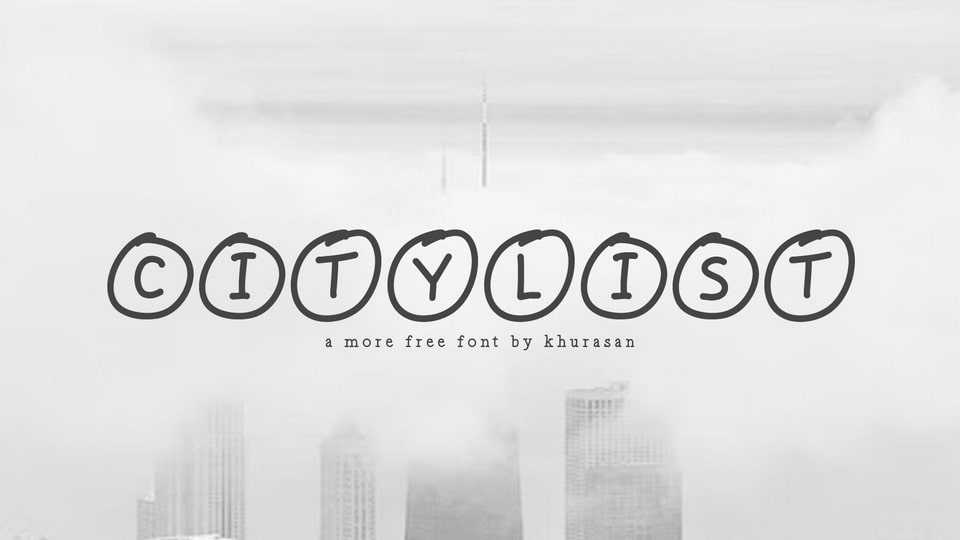
Download Citylist font, a hand-drawn typeface that embraces imperfection with a whimsical twist. In this unique typeface, each letter dances within its own imperfect circular frame, creating a charming and visually engaging composition.